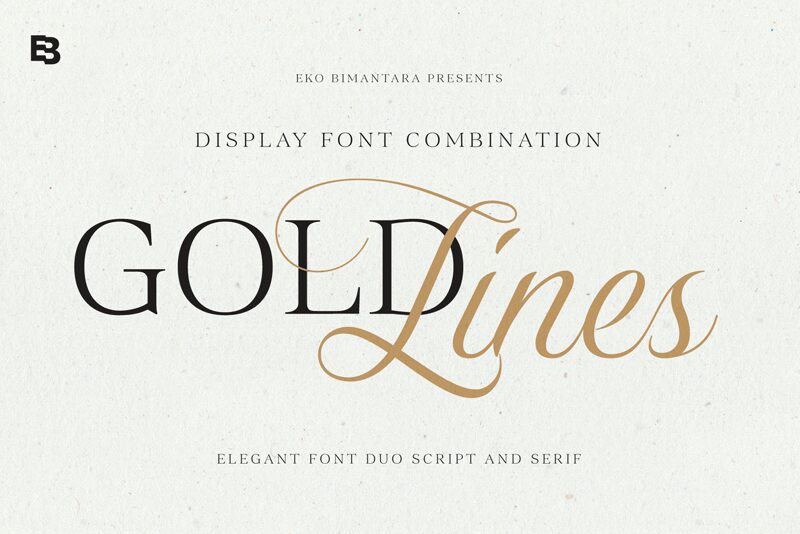
Gold Lines, crafted by renowned designer Eko Bimantara, is an exquisite calligraphy font. With its delicate strokes and graceful curves, this semi-light typeface adds a touch of sophistication to any project.
Ideal for wedding invitations and event stationery, Gold Lines infuses elegance into every word. Its timeless design also makes it suitable for luxurious branding projects and high-end product packaging. Whether used in print or digital media, this elegant font effortlessly captures attention and exudes opulence.
Elevate your designs with the refined beauty of Gold Lines.